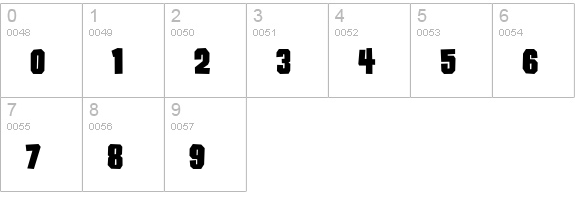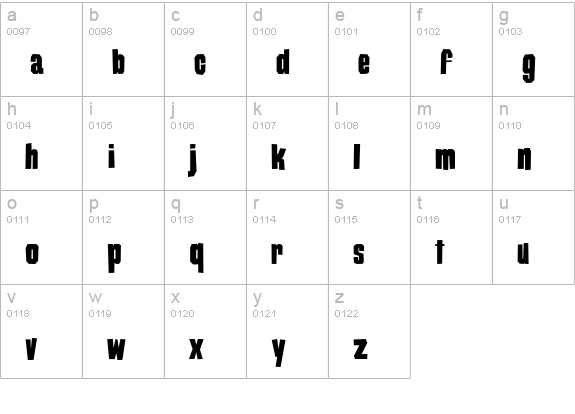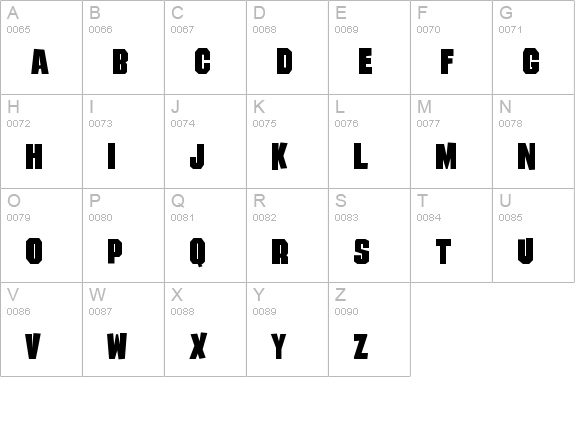
Damaged Goods Font Details
Introducing Damaged Goods font, an exquisitely crafted typeface that embodies the perfect balance between elegance and a touch of decay. This unique font captures the essence of distressed and weathered aesthetics, making it an ideal choice for projects that require a vintage or grunge-inspired look. Damaged Goods font features intricately designed letterforms, each with its own hint of imperfection, showcasing the beauty that can be found in flaws. Its rough edges and worn-out appearance add a nostalgic charm to any design, evoking a sense of authenticity and character. With its versatility, Damaged Goods font can be used in a wide range of creative projects, including posters, logos, branding materials, packaging, album covers, and more. Its distinctive style will help your designs stand out and make a lasting impression. The best part? Damaged Goods font is available to download for free at FontsMarket.com. That's right, you can freely access this incredible font and add it to your collection without any restrictions. Whether you're a professional designer or an aspiring creative, this font offers a fantastic opportunity to elevate your designs and bring them to life. So why wait? Embrace the beauty of decay and download Damaged Goods font today. Let its worn charm and vintage appeal transform your designs into timeless works of art. Discover the power of this one-of-a-kind typeface and unleash your creativity like never before. Get your hands on Damaged Goods font now, exclusively at FontsMarket.com, your go-to source for high-quality and freely available fonts.